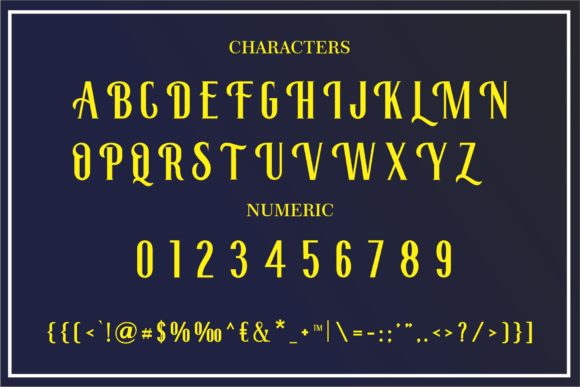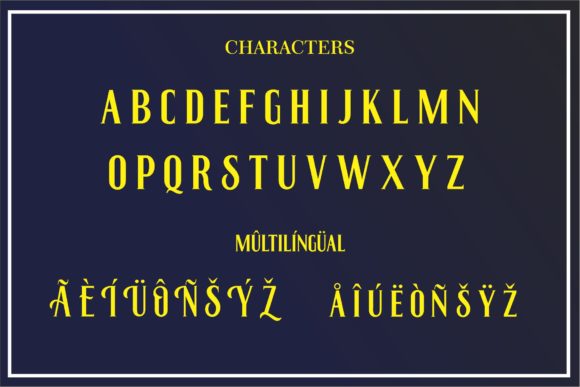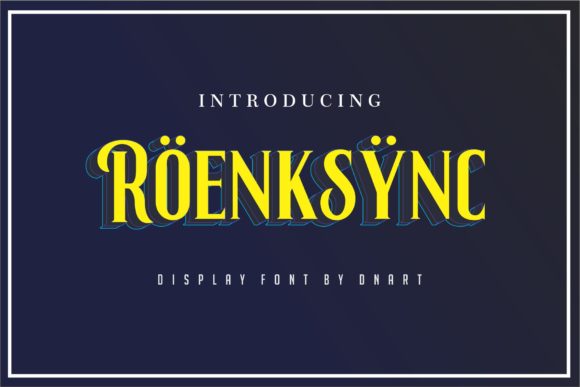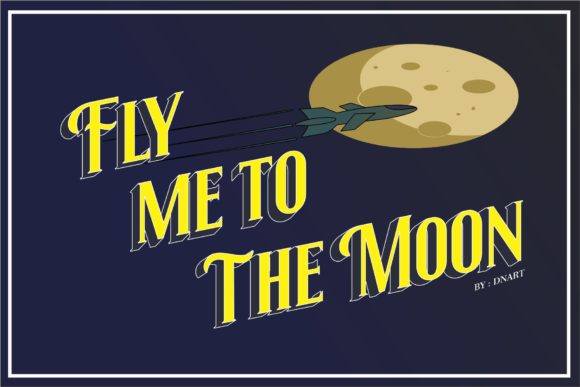
Introduction to Roenksync Font
As a designer, you know the feeling of hitting a creative roadblock. You’re working on a project, and you just can’t seem to find the right font to bring your vision to life. But what if I told you that there’s a font that can add a touch of elegance to even the most mundane design? Enter the Roenksync Font, a vintage serif font that’s sure to elevate your designs and leave a lasting impression.
Whether you’re working on a logo, poster, branding, or flyer, the Roenksync Font is the perfect addition to your design arsenal. With its high-quality design and transparent background, you can easily integrate it into your creative project and make it stand out from the crowd. And the best part? It’s available for free download, making it a valuable resource for designers of all levels.
Key Features of Roenksync Font
- Unique and Creative Design: Roenksync Font is a versatile design resource ideal for creative projects that require a distinctive and modern touch.
- Customizable: This font offers a range of customization options, including font sizes, colors, and styles, allowing designers to tailor it to their specific creative project needs.
- Perfect for Digital Designs: Roenksync Font is ideal for digital designs, including graphics, logos, and UI elements, due to its modern and sleek design aesthetic.
Honest Review: Roenksync Font
I recently stumbled upon the Roenksync Font while searching for a free download to use in a creative project. As a designer, I was eager to try out this new design resource and see how it would work for me.
- What works well: ✨ The Roenksync Font has a clean and modern aesthetic that I found to be very versatile. It’s perfect for creating titles, headings, and body text in a variety of contexts.
- What works well: ✨ The font also comes with a transparent background option, which is super handy for designing against complex backgrounds.
However, there are a few limitations to keep in mind. ⚠️ For one, the font only comes in a single weight, which might limit its use in certain situations. Additionally, the font family is not particularly large, so you may need to be careful when using it in longer blocks of text.
Overall, I was pleasantly surprised by the Roenksync Font. It’s a high-quality design resource that’s perfect for a wide range of creative projects. While it may not be the most comprehensive font family, it’s definitely worth checking out for its clean design and transparent background option.
Tips for Getting the Most Out of Roenksync Font
To maximize the potential of the Roenksync Font, experiment with different font sizes, colors, and combinations. This will help you create visually appealing and engaging designs for your creative project.
The Roenksync Font is ideal for a wide range of creative projects, including social media graphics, presentations, and marketing materials. Its versatility and high quality make it a valuable design resource for any project.